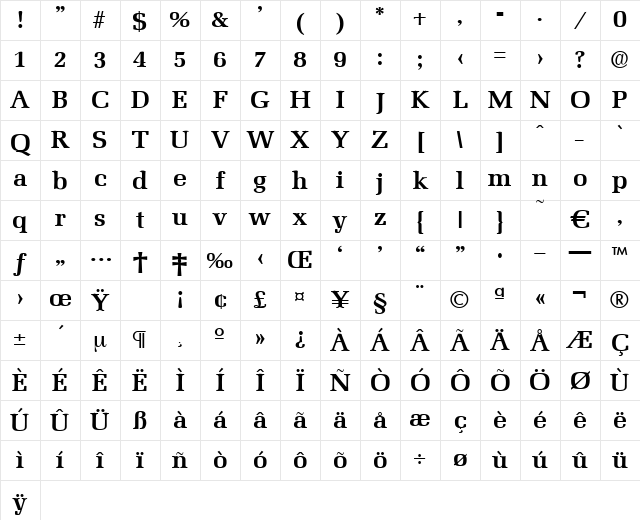
Marseille-DemiBold Regular
Design Context for Marseille-DemiBold
Marseille-DemiBold is a composed and adaptable typeface that performs quietly and consistently across a wide range of design contexts. Its bold stroke weight gives it real presence on the page.